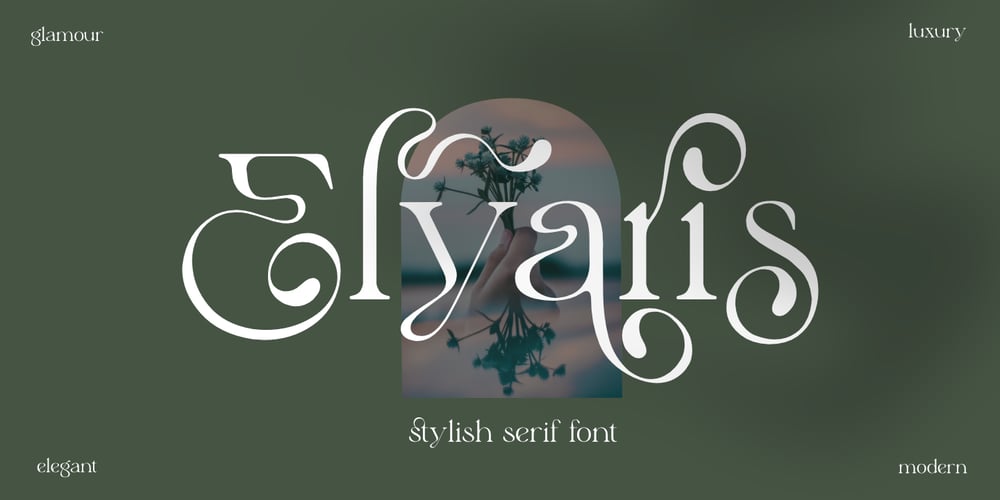
Elyaris Font Family was designed by Saiful Anwar and published by Sealoung. Elyaris contains 1 styles and family package options. Elyaris is a classic, elegant and unique font that has lots of flowing stylish alternates and also uses ligatures to connect letters smoothly. Perfect for branding, logos, invitations, mastheads, and more. The Elyaris has 15 ligatures, 89 alternates for an upper and lower case as well as numbers and punctuation making it very versatile.The Elyaris also includes the full set:- Uppercase and Lowercase- Multilingual Symbol- Number- Punctuation- Ligature- Alternative- multilingual Hope you enjoy our fonts and if you have any questions feel free to message & I’m happy to help ๐